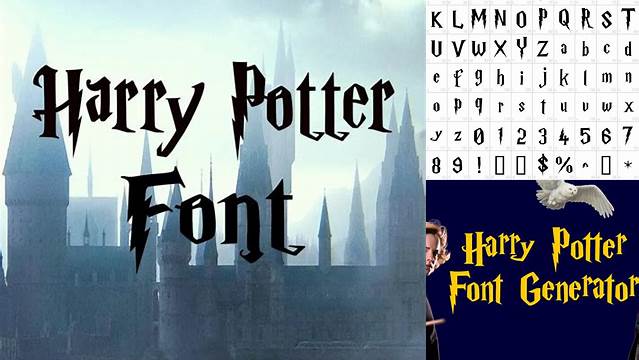
Free Harry Potter Font Download: Magical Typography
Are you a Harry Potter fanatic looking to infuse your designs with a touch of wizardry? Or maybe a designer searching for that perfect font to capture the magical essence of the beloved series? Well, you've come to the right place, guys! In this comprehensive guide, we'll delve into the enchanting world of Harry Potter fonts, exploring where you can find them for free and how to use them to conjure captivating creations. So, grab your wands (or rather, your mice) and let's dive in!
Unveiling the Magic: The Fonts of Harry Potter
The Harry Potter franchise has captivated hearts worldwide, and its distinct visual identity is a key part of its allure. The fonts used in the films, books, and merchandise play a crucial role in creating the magical atmosphere we all know and love. These fonts evoke a sense of history, mystery, and the fantastical, transporting us to the world of Hogwarts and beyond. When we talk about Harry Potter fonts, we're generally referring to a few key typefaces that have become synonymous with the series. The most prominent of these is the Harry Potter title font, a custom typeface that has evolved slightly over the years but maintains its signature whimsical and slightly gothic feel. This font is instantly recognizable and embodies the spirit of the wizarding world. Alongside the title font, various other fonts are used throughout the books and films, contributing to the overall aesthetic. These fonts often have a classic, slightly old-fashioned feel, reminiscent of historical documents and magical texts. They add to the sense of authenticity and the timeless quality of the Harry Potter universe. Whether you're designing a fan website, creating social media graphics, or working on a Harry Potter-themed project, using the right font can make all the difference. It's the secret ingredient that will instantly transport your audience to the magical world and make your designs truly stand out. So, let's explore where you can find these enchanting fonts for free and how to wield their magic in your own creative endeavors.
Where to Find Free Harry Potter Fonts: A Treasure Hunt for Designers
Top Harry Potter Fonts for Free Download: Our Magical Picks
Now that we know where to look, let's highlight some of the top Harry Potter fonts you can download for free. These fonts capture the essence of the wizarding world and are perfect for adding a touch of magic to your designs. We've curated a list of fonts that are readily available for personal use, so you can start creating your Harry Potter-inspired projects right away. Remember to always check the license information before using any font, just to be on the safe side, guys!
- Harry P: This is a classic font that closely resembles the Harry Potter title font. It's instantly recognizable and perfect for headings, posters, and other display purposes. The font captures the whimsical and slightly gothic feel of the original, making it a great choice for any Harry Potter-themed project. It's available in various weights and styles, allowing you to create a range of different effects.
- Hogwarts Wizard: Another popular choice, Hogwarts Wizard, evokes the magical atmosphere of the school. It's a versatile font that works well for both headings and body text. The font has a slightly more formal feel than Harry P, making it suitable for projects that require a touch of elegance and sophistication. It's also a great choice for creating invitations, certificates, and other official-looking documents.
- ** зелваргш дщте:** If you're looking for a font with a more handwritten feel, зелваргш дщте is an excellent option. It's reminiscent of the script used in the Marauder's Map and other magical documents. This font adds a personal and whimsical touch to your designs, making them feel more authentic and handcrafted. It's perfect for creating invitations, letters, and other projects that require a touch of charm and personality.
Unleash Your Inner Wizard: Creating with Harry Potter Fonts
So, there you have it, guys! A comprehensive guide to finding and using free Harry Potter fonts. With the right fonts and a little bit of creativity, you can conjure up designs that transport your audience to the magical world of Hogwarts. Remember to explore the resources we've shared, experiment with different fonts and design elements, and most importantly, have fun! Whether you're creating fan art, designing invitations, or working on a Harry Potter-themed project, the fonts you choose can make all the difference. They're the secret ingredient that adds a touch of magic and brings your creations to life. By understanding the different types of Harry Potter fonts available, where to find them, and how to use them effectively, you can unleash your inner wizard and craft designs that are truly enchanting. So, grab your wands (or mice), and let the magic begin!